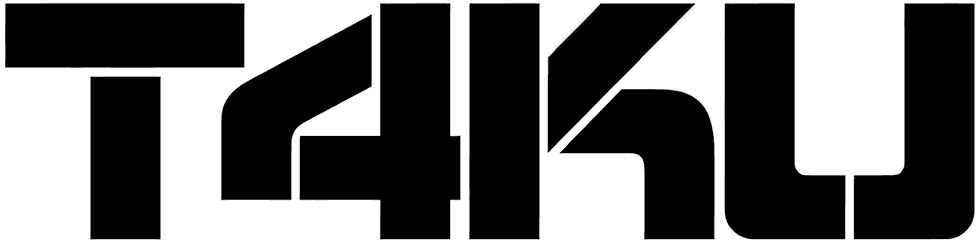
Telone Font
Telone is a techno font that has two weights with different interchangeable letters that can be used as alternates in a wide set of graphic content like street posters, logos, banner ads, digital brochures, and flyers. Although it doesn’t support numbers, it can convey a sense of modernity, futuristic, drama, and dynamic to the audience due to its eye-grabbing style.